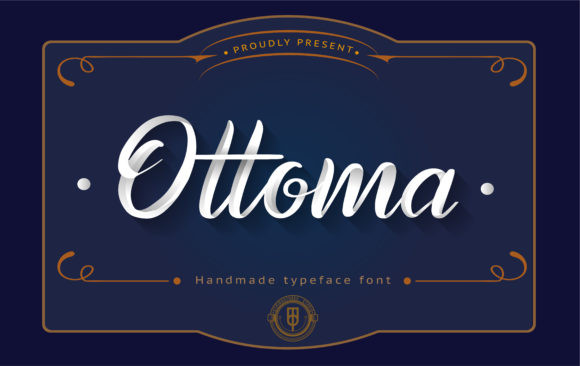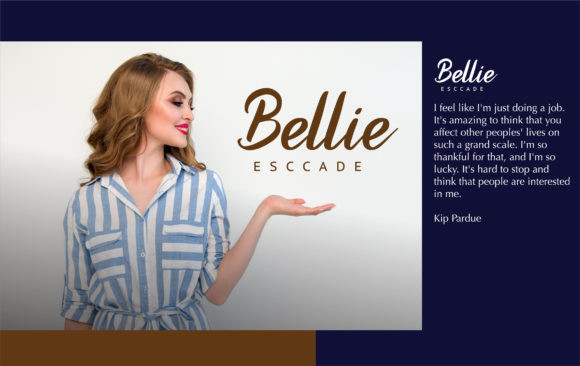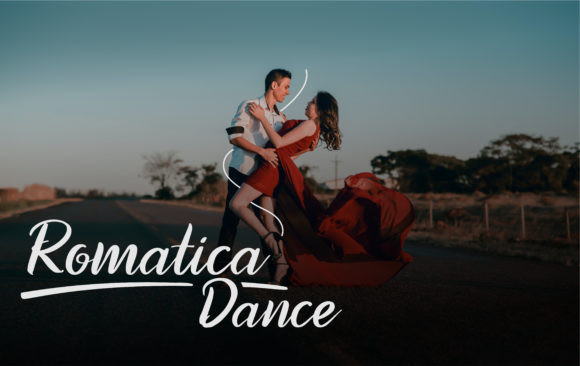
Ottoma Font
Ottoma is a beautiful script font. It features an incredibly classic style, while still keeping a friendly feel. Ottoma is the perfect font for making original and outstanding designs.